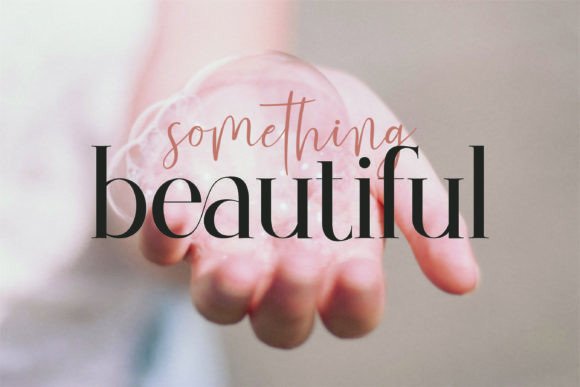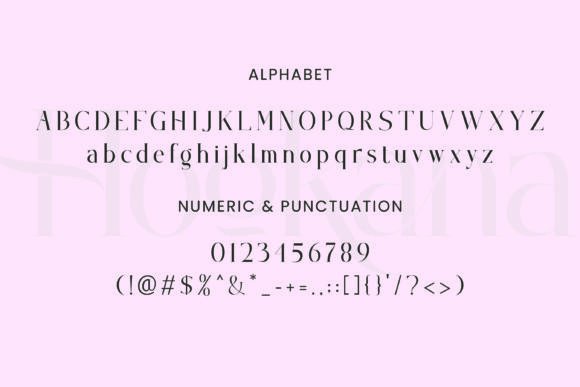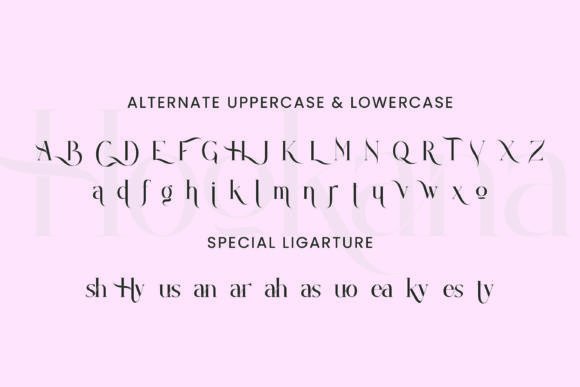
Introduction to Hookana Font
Hookana is a modern and elegant serif font.
Stylish and fashionable, this font is suitable for a large variety of chic designs .